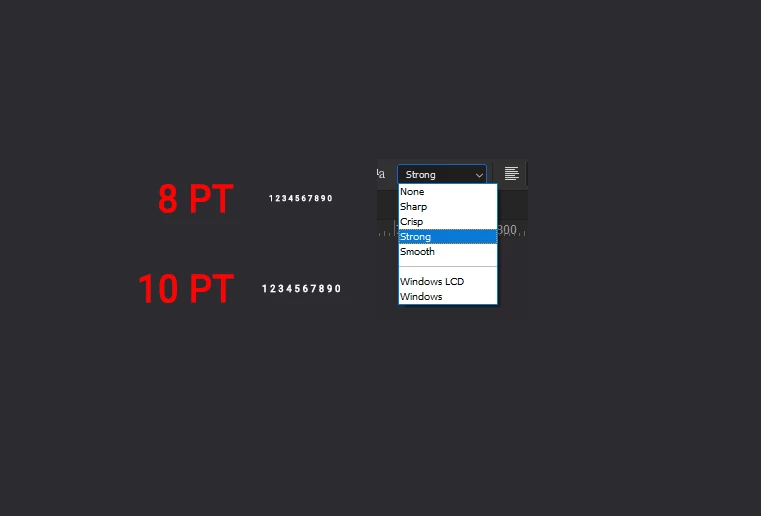
Best small size font points that looks crisp
I need to keep my font size for a particular project Im working on around 8 points, but it seems a bit blurry, although I have picked strong as the anti aliasing. I also tried to import from AI a vector font creating outlines, but in PS it still looks not as crisp when its scaled down to 8 points.
Is there a particular font which is good for small scale? and looks sharp and crisp? I noticed that from 10 points and up the font starts to look more clear.
Is this for a print job (if so, what type of printing) or for on-screen viewing (if so, on what devices)?
8pt is pretty hard to read on screen, you MIGHT get away with it with great eyesight and a high-rez screen like an Apple Retina display or iPhone/iPad but IMO it's risky for distribution online..
I'd suggest that the way to find it is to test, try it yourself, that’s how we users here have learned, your own view may differ, so testing is vital as there are no rules in many cases.
As Didier mentioned, black on white looks different to white out of black in terms of legibility too.
Going way way back to Courier New takes some beating when it comes to small UI fonts
One possibility would be to use a bitmap font, which are designed to not need anti-aliasing and still be readable.
Is it important to your project that the viewers can actually read the text? Or is it required for your project that the typesize is smaller than some people can read?
"Strong" means the antialisaing is important so it is normal it seems a little blurry.
Try to use Crisp or Sharp instead and it will be less antialiased.
Also it depends ton the targeted output media. For screen 8 pt is rather small and if inverted  (white on on black) it is worse.
I would suggest a web font like Roboto and maybe increase the lettre spacing a little…